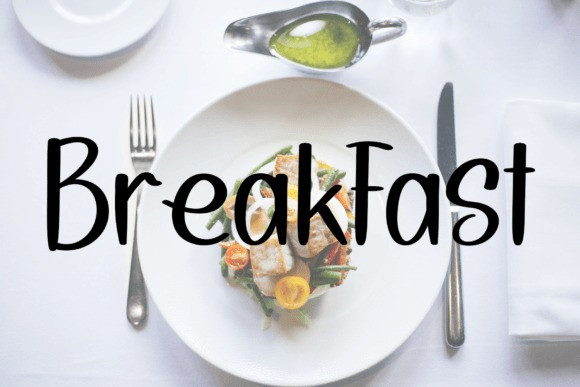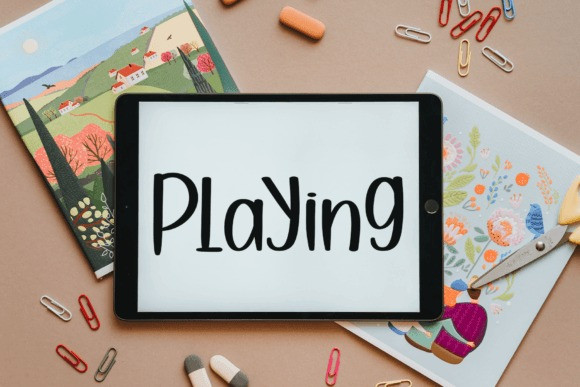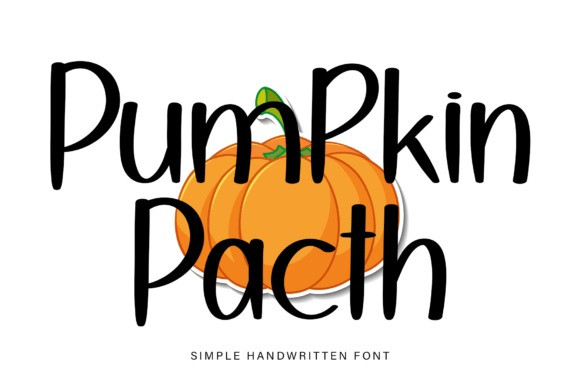
Pumpkin Pacth Font
Pumpkin Pacth Font is a cool and modern handwritten font. Whether you’re using it for crafts, digital design, presentations, or creating greeting cards, this font has the potential to be your go-to font, whatever the occasion.